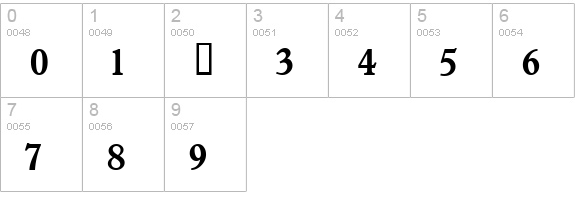
Istria-Old-Style-Bold is a strong, high-contrast variant in the Istria typeface family \xE2\x80\x94 well suited to headlines, attention-grabbing titles, and strong calls-to-action.
Introducing Istria Old Style Bold font - a classic and timeless typeface that exudes elegance and sophistication. With its strong and sturdy letterforms, Istria Old Style Bold is perfect for adding a touch of vintage charm to your design projects. The bold weight of this font makes it stand out and command attention, making it ideal for headlines, titles, and branding materials. What makes Istria Old Style Bold even more appealing is that it is completely free to download at FontsMarket.com. Whether you are a professional designer looking for a versatile typeface or a hobbyist seeking to elevate your projects, Istria Old Style Bold is the perfect choice. Download it today and add a touch of old-world charm to your designs.